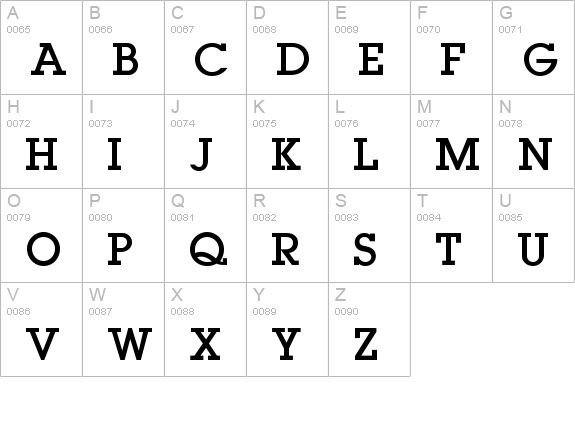
LubalinMedium is a classic and versatile font that exudes elegance and sophistication. With its clean lines and timeless design, this typeface is perfect for a wide range of design projects, from branding to editorial work. The medium weight strikes the perfect balance between boldness and readability, making it ideal for both headlines and body text. One of the best features of LubalinMedium is that it is available for free download at FontsMarket.com. This means that you can easily access this high-quality font without any cost, making it a valuable addition to any designer's toolkit. Whether you are working on a professional project or a personal creative endeavor, LubalinMedium is sure to elevate your design with its refined aesthetic and effortless style. Download it today and see the difference it can make in your work!